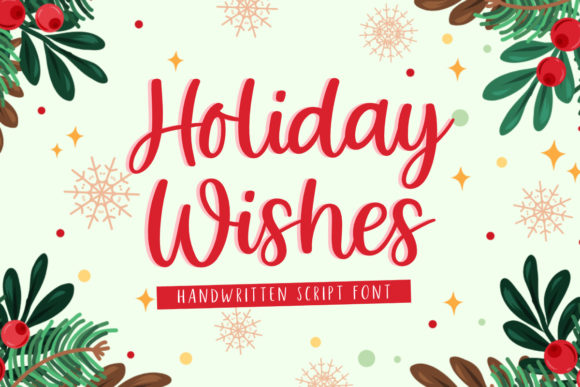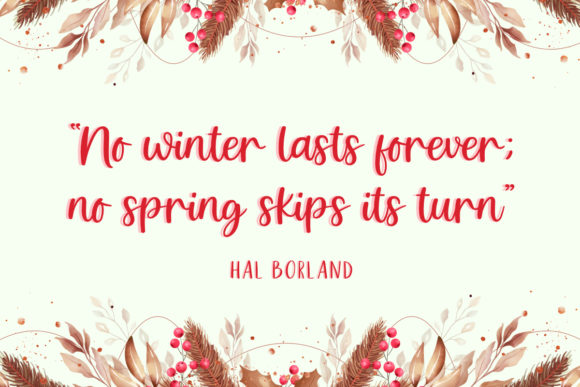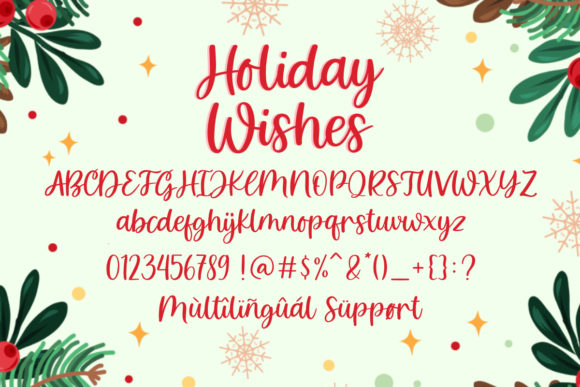
About Holiday Wishes Font
Holiday Wishes is a friendly, fresh, rich, and elegant handwritten font. It is ideal for holiday-themed greeting cards and for any crafting project that requires a romantic touch.